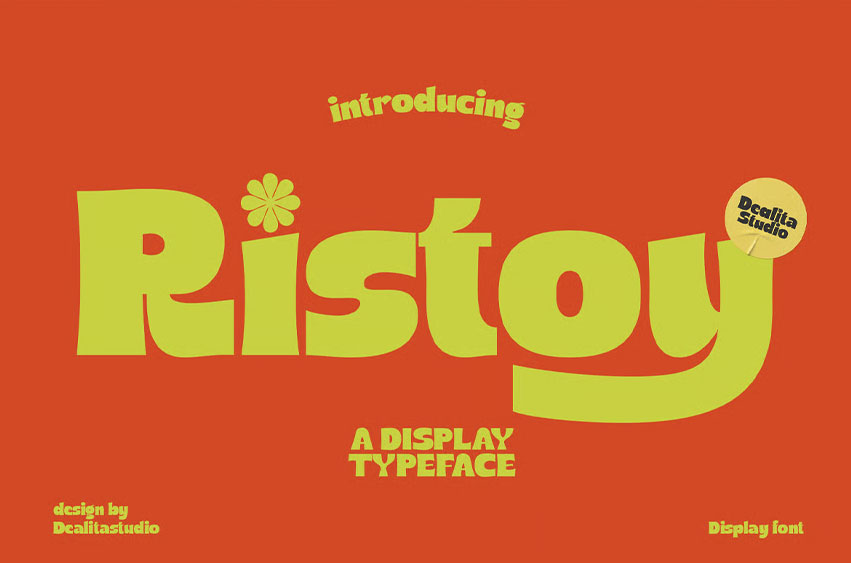
Ristoy Font Injects Joy and Personality into Your Brand. Ristoy is a bold, energetic, and highly Playful Sans-Serif font designed to be the life of the party. With its thick, rounded forms and commanding presence, Ristoy guarantees your message is not only read but remembered. It’s the ultimate display typeface for brands that want to convey a friendly, approachable, and fun personality.
Maximum Impact, Maximum Charm.
Unlike rigid geometric fonts, Ristoy possesses a subtle bounce and irresistible charm, making it perfect for products targeting youth, families, or the snack/beverage market. Its boldness ensures high legibility even when layered over complex backgrounds, while the playful alternates add a dynamic, custom-made feel to your logotypes.
Functional and Full of Character:
• Bold Display Weight: Optimized for large headers, posters, and product packaging, ensuring maximum visibility.
• Playful Alternates: Includes specialized alternates (asumsikan ss01 atau salt) for specific letters to enhance the playful, ‘bouncy’ look.
• High Readability: Despite its boldness, the rounded design maintains clarity across various applications.
Ideal Applications: Your Partner for Engaging Visuals:
• Food & Beverage Branding: Logos and packaging for snacks, cereals, or craft beer.
• Event & Party Promotion: Bold, fun posters and flyers that need immediate attention.
• Social Media & YouTube Titles: Eye-catching titles that stand out in crowded feeds.